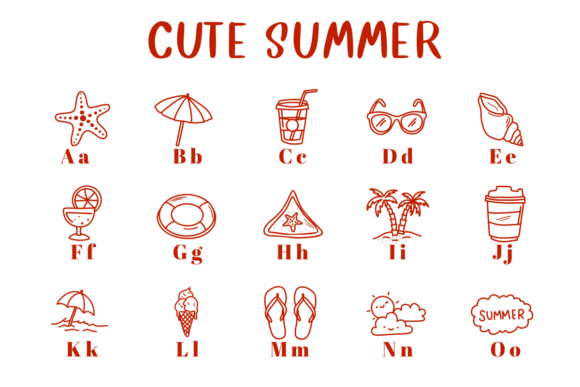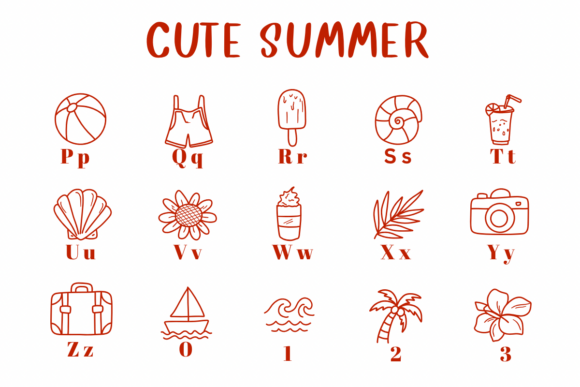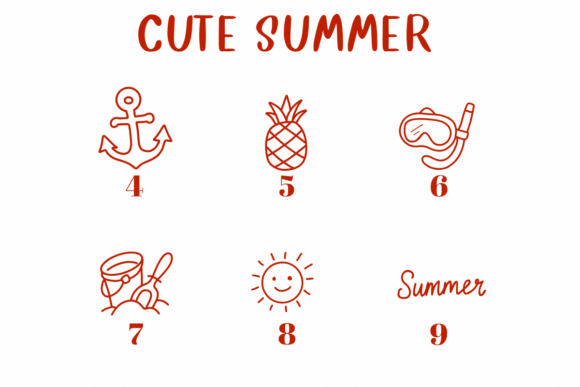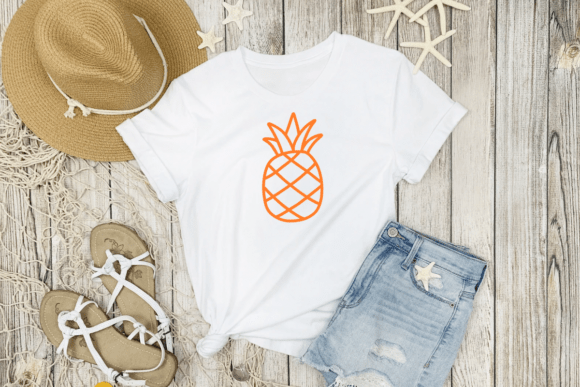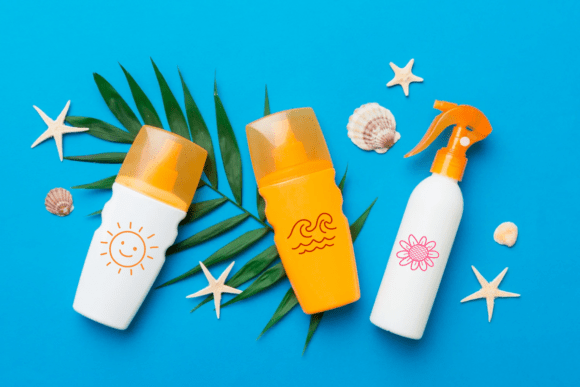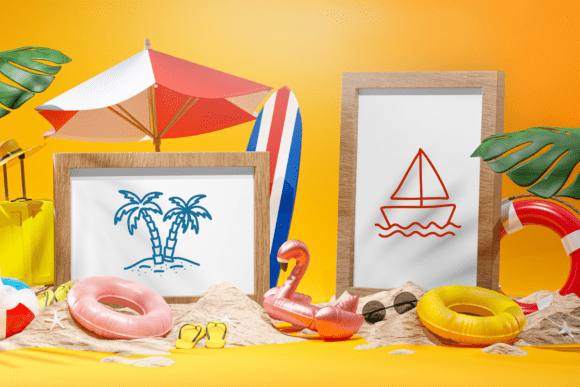
Crafting the Perfect Summer Vibes with Cute Summer Font
There’s something magical about designing a project that captures the essence of a carefree summer day. The sun is shining, the flowers are blooming, and your creativity is in full bloom. You’re searching for the perfect font to add that extra touch of whimsy to your DIY craft, wedding invitation, or logo. That’s where the Cute Summer Font comes in – a delightful dingbats font that embodies the relaxed, sunny spirit of the season.
As a designer, you understand the importance of choosing a font that not only complements your project but also sets the tone for the overall aesthetic. The Cute Summer Font is more than just a pretty face; it’s a valuable addition to your design toolkit, perfect for infusing your creative projects with a playful, summer vibe. Whether you’re crafting a beach-themed wedding invitation or designing a logo for a summer camp, this font is sure to bring a smile to your clients’ faces.
Cute Summer Font Key Features
- Unique Characteristics: Cute Summer Font features a playful, hand-drawn design with rounded edges and soft lines, perfect for creating a whimsical and carefree atmosphere.
- Character Set: The font includes a comprehensive character set, including uppercase and lowercase letters, numbers, punctuation marks, and special characters.
Cute Summer Font Review
I recently had the chance to work with the “Cute Summer Font” and I must say, it’s a delightful addition to any design project.
What works well: ✨ The font is perfect for creating a whimsical and playful atmosphere. It’s great for titles, headings, and short paragraphs where you want to add a touch of summer charm. The font’s rounded edges and smooth lines make it easy to read, even at smaller font sizes.
What doesn’t work so well: ⚠️ While the font is cute and fun, it may not be suitable for formal or professional projects. Its casual nature might come across as unprofessional in certain contexts. Additionally, the font’s limited character set may require some additional design work to create more complex layouts.
Overall impression: I think the “Cute Summer Font” is a great choice for designers looking to add a touch of summer fun to their projects. While it has some limitations, its unique character and playful nature make it a great asset for any designer looking to create a lighthearted and engaging design.
Pros:
- Perfect for creating a whimsical and playful atmosphere
- Easy to read, even at smaller font sizes
- Great for titles, headings, and short paragraphs
Cons:
- Not suitable for formal or professional projects
- Limited character set may require additional design work
The Cute Summer Font is perfect for:
- Birthday invitations and party decorations.
- Summer-themed social media posts and graphics.
- Children’s books and educational materials.
To get the most out of the Cute Summer Font, try combining it with:
- Colorful graphics and illustrations.
- Whimsical shapes and patterns.
- Fun and playful graphics.